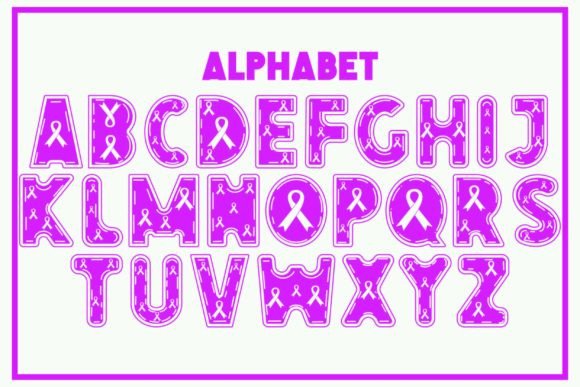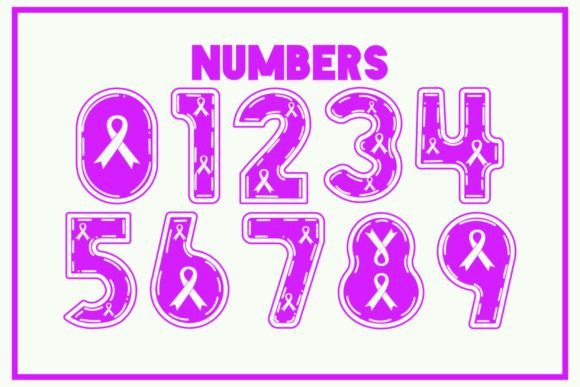
Embracing Creativity with the Breast Cancer Font
There’s nothing quite like the rush of inspiration that comes from staring at a blank canvas, waiting for the perfect idea to strike. For designers, this moment is a thrilling dance of creativity, where imagination knows no bounds. It’s in these fleeting moments that we discover the perfect font to elevate our designs – and that’s where the Breast Cancer Font comes in.
This chic and assertive decorative font is more than just a pretty face; it’s a statement piece that adds a touch of whimsy to any project. Whether you’re designing a logo, a poster, or a social media graphic, the Breast Cancer Font is the perfect addition to bring your vision to life. Its quirky charm will undoubtedly captivate your audience and leave a lasting impression.
Breast Cancer Awareness Font Key Features
- Unique Characteristic: A portion of the font proceeds go towards breast cancer research and awareness, making it a socially responsible choice.
- Font Style: A bold, sans-serif font with a distinctive design that grabs attention and promotes awareness.
- Color Options: Available in various colors, including pink, which is a widely recognized color for breast cancer awareness.
Designer Review: Breast Cancer Font
I recently had the chance to review the “Breast Cancer Font” and I must say it’s a mixed bag. On the positive side, ✨ the font’s bold and eye-catching design is sure to grab attention, making it perfect for awareness campaigns and fundraising events. The use of bright colors and emotive graphics effectively conveys the importance of the cause.
Another aspect that works well is ✨ the font’s versatility. It can be used for a variety of purposes, from posters and flyers to social media graphics and even merchandise. The font’s flexibility makes it an excellent choice for organizations and individuals looking to create impactful materials.
- ⚠️ The font’s design may be perceived as too loud or overwhelming for some audiences, potentially detracting from the message.
- ⚠️ The font’s use of bright colors may not be suitable for all backgrounds or color schemes, potentially causing visual clashes.
Overall, the “Breast Cancer Font” is a well-intentioned design that effectively conveys its message. However, its limitations must be taken into consideration when using it for various purposes. With some careful planning and consideration, this font can be a powerful tool for raising awareness and supporting a vital cause.
The Breast Cancer Font is commonly used for awareness campaigns, fundraising events, and charity projects. To get the most out of it, use it in conjunction with bright colors and bold graphics. Avoid overusing the font to maintain its impact.